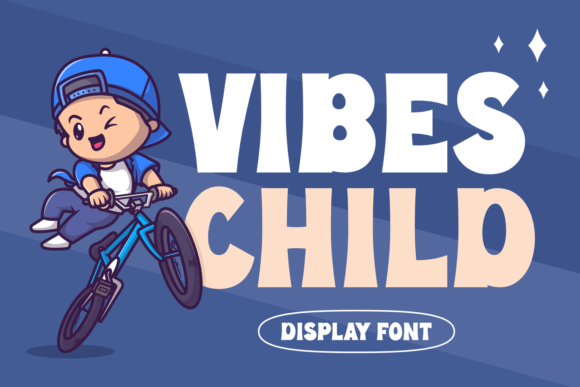
Step into the captivating realm of Vibes Child Font, a whimsical and irresistible display font ready to ignite your imagination! This font's playful and approachable nature will instantly charm your audience, making it the perfect choice for capturing their hearts and minds. Each character dances across your screen with a unique and expressive flair, inviting you to embark on a whimsical journey of creativity.
Unleash your inner artist and let your designs shine with Vibes Child's versatile charm. Create eye-catching posters that command attention, design t-shirts that ignite conversations, and craft website headlines that demand to be clicked. With its playful and energetic vibe, this font will elevate your projects to new heights, leaving a lasting impression on all who encounter it.
Imagine the joy of creating whimsical invitations that spark excitement and wonder in your guests' eyes. Picture the delight of designing social media posts that dance and leap off the screen, captivating your followers with their undeniable charm. With Vibes Child Font, the possibilities are limitless, and your imagination is the only boundary.
So, why settle for ordinary when you can embrace the extraordinary? Embrace the power of Vibes Child Font today and let your creativity soar to new heights!